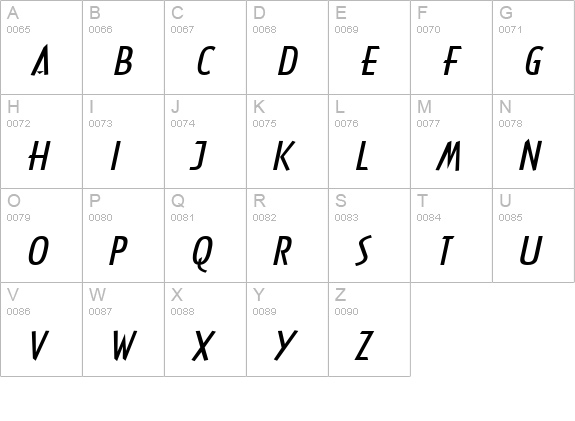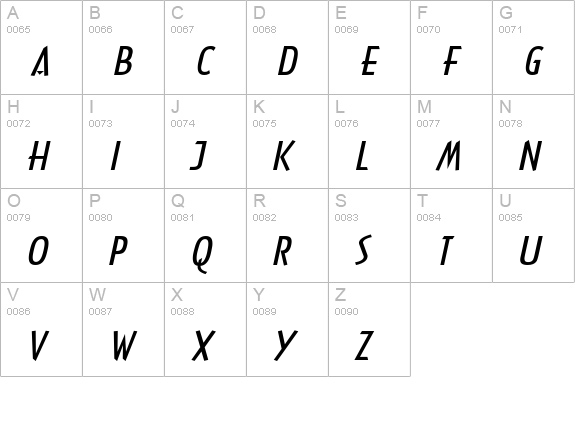
ArcaneBroad Italic Font Details
ArcaneBroad Italic is a distinctive, italic variant in the ArcaneBroad typeface family \xE2\x80\x94 well suited to design and typography projects.
ArcaneBroad Italic font is a stylish and elegant typeface that exudes a sense of mystery and sophistication. Its sleek curves and unique design make it perfect for adding a touch of magic to your projects. Whether you're designing a logo, creating a poster, or crafting a social media post, ArcaneBroad Italic will elevate your work to new heights. The best part? ArcaneBroad Italic font is completely free to download at FontsMarket.com. With just a few clicks, you can add this stunning font to your collection and start using it in all your creative endeavors. Don't miss out on this opportunity to enhance your designs with the enchanting beauty of ArcaneBroad Italic font. Download it today and let your imagination run wild!